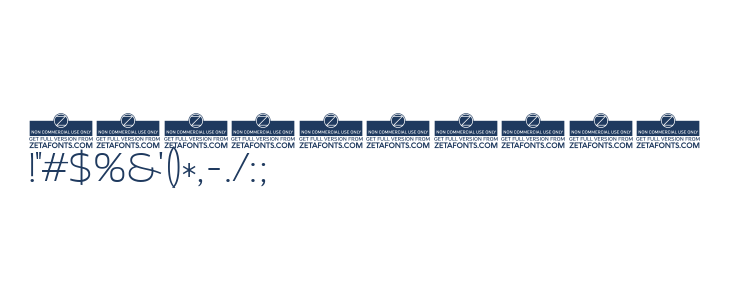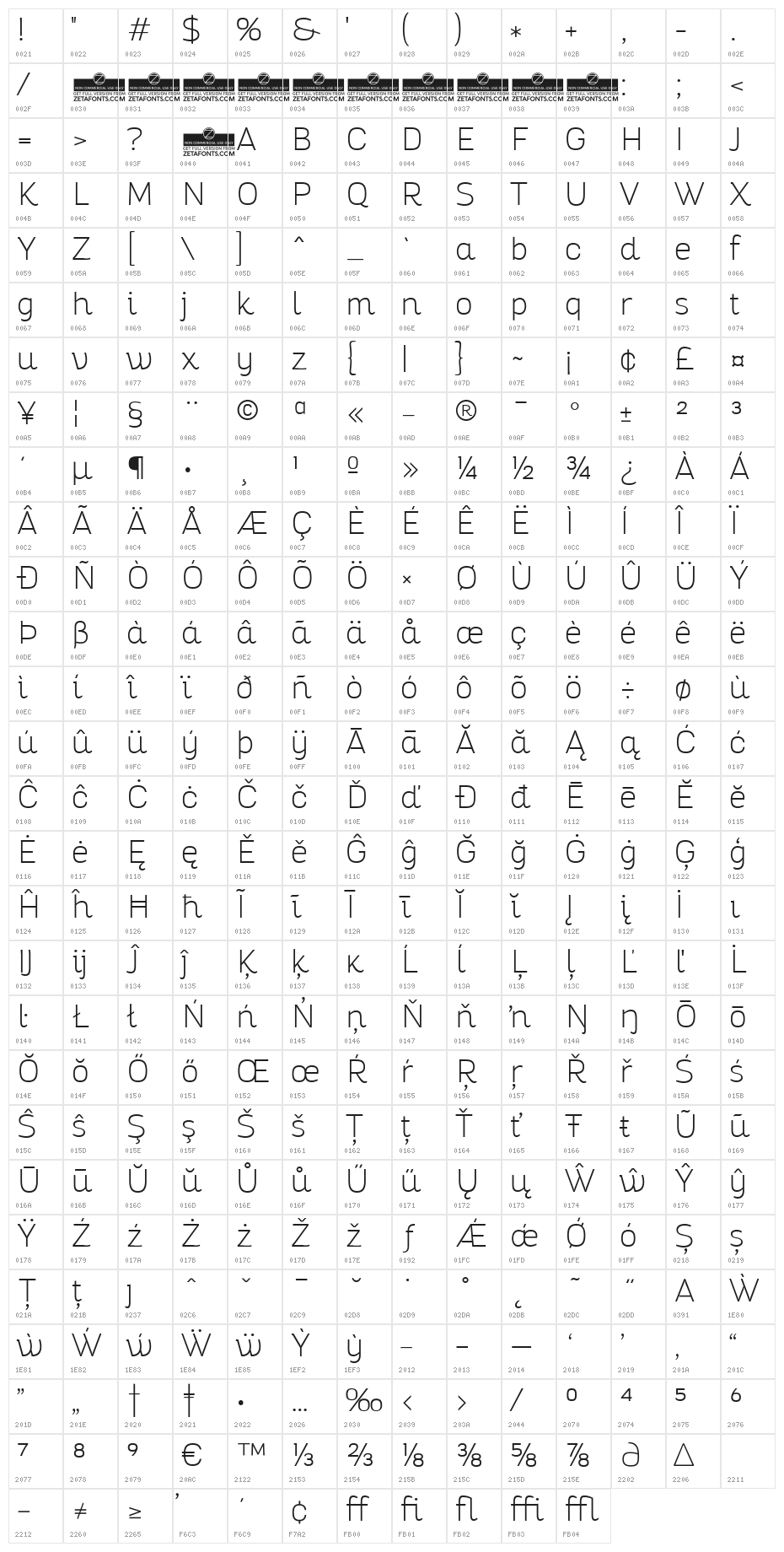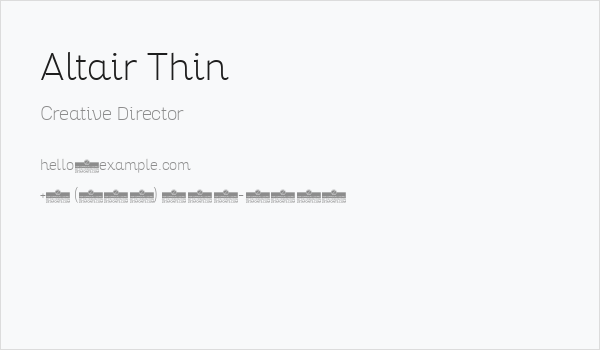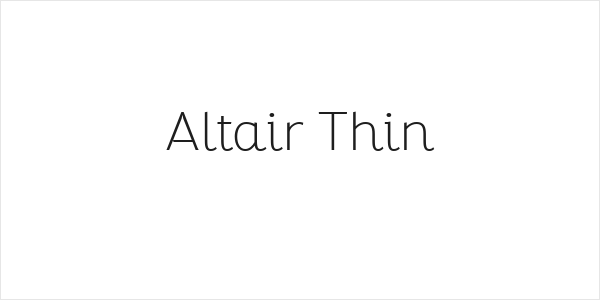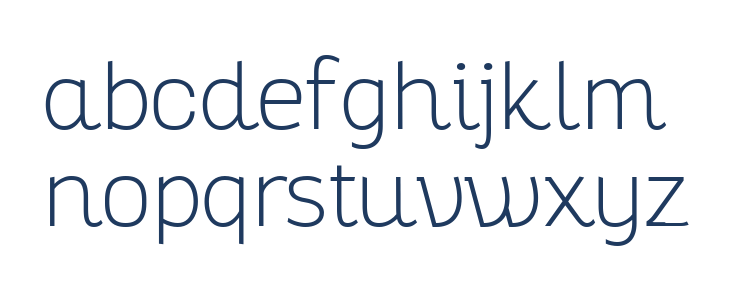
Altair Thin Font
Altair Thin Description
This font features a clean and minimalist design with a thin, uniform stroke width. The characters are well-proportioned and exhibit a modern aesthetic, making it suitable for contemporary design projects. The uppercase letters are tall and slightly elongated, while the lowercase letters maintain a consistent height, providing a harmonious balance. The numerals and special characters are crafted with the same attention to detail, ensuring readability and style. The overall appearance is sleek and elegant, with a focus on simplicity and clarity.
| Proposed Projects | Ideal for use in digital interfaces, branding, and editorial design where a modern and clean look is desired. |